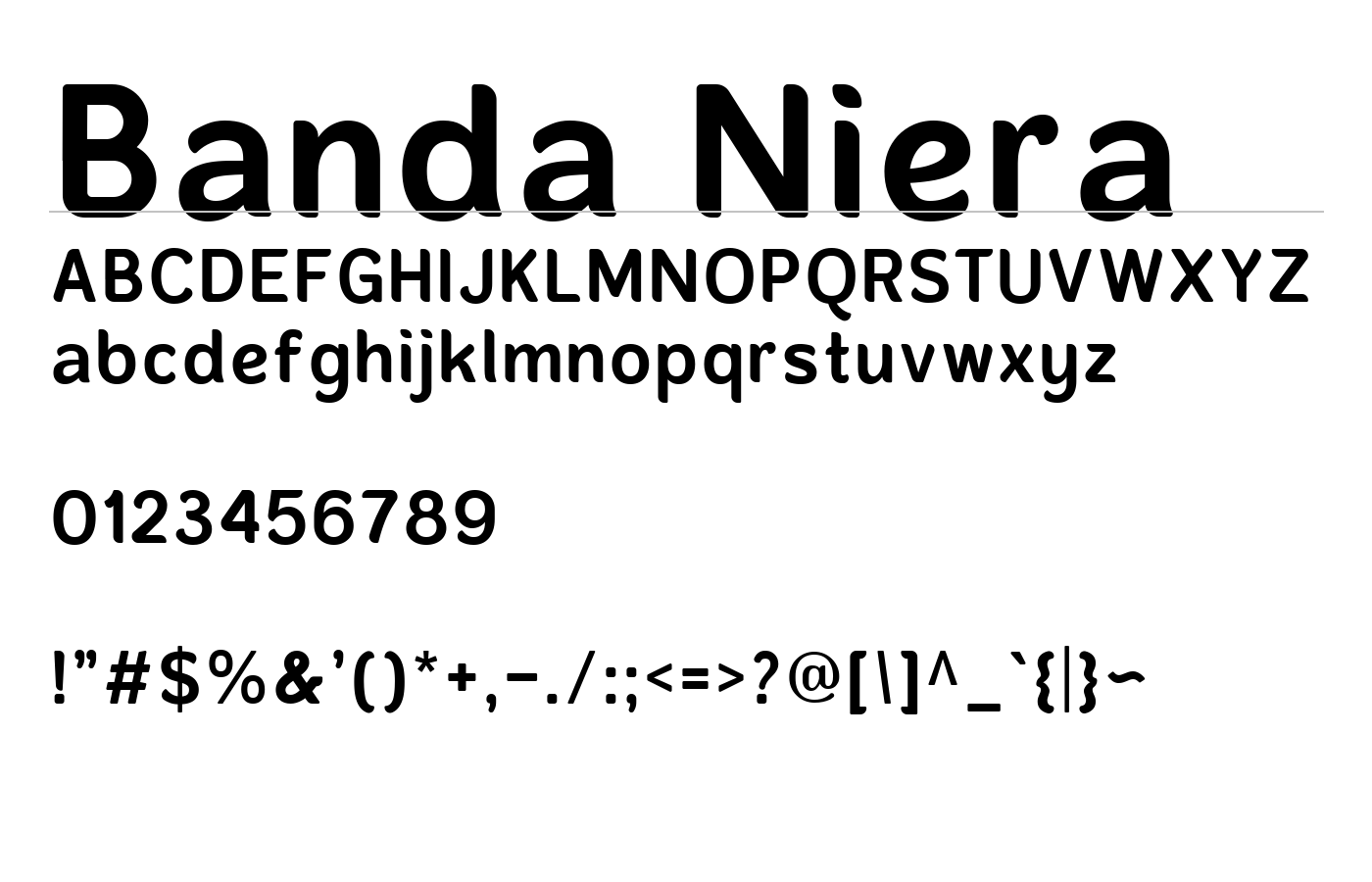
Banda Niera is a friendly and modern sans serif font with a slightly rounded, warm character that feels approachable and clean. Its moderate weight and open letterforms offer good readability, making it perfect for both headlines and body text in branding, editorial design, and user interfaces. This font’s balanced style combines professionalism with a touch of casual charm, suitable for projects seeking a contemporary yet inviting appearance.
Banda Niera Font
About Banda Niera Font
| Font family | Banda Niera Font |
| Designer | R A M Z |